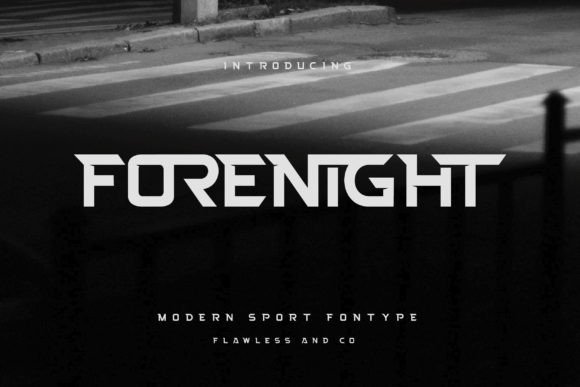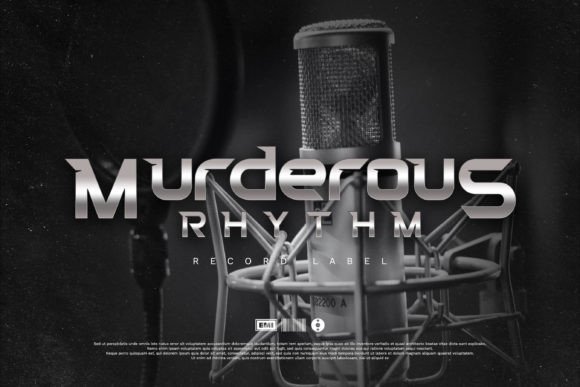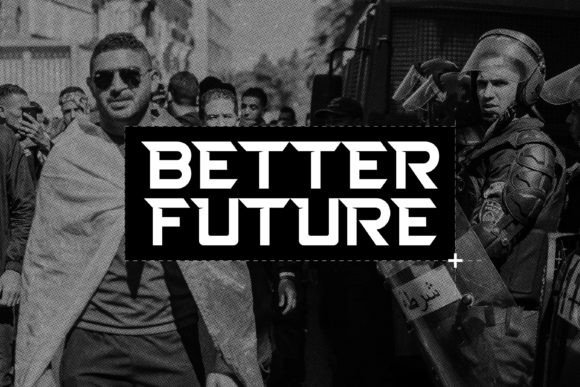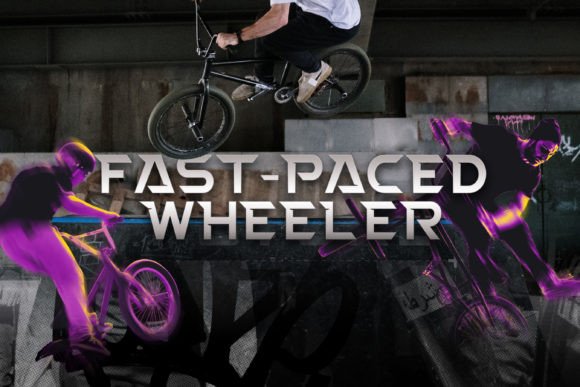
Forenight Font: Bold Display Font for Modern Logo Design
About the Forenight Font
Elevate your designs with Forenight Font, a font that combines sophistication with readability. Forenight is a dynamic and modern sport font designed to capture the spirit of athleticism and energy. With its bold and sleek letterforms, Forenight brings a sense of power and movement to your sports-related designs. Inspired by the speed and intensity of athletic events, this font is perfect for sports team logos, jerseys, posters, and any design that aims to convey a sense of strength and competitiveness.
Forenight excels in headlines, logos, and short, impactful text across various sports-related applications, including posters, banners, and merchandise. Its strong forms also work well for branding projects needing a powerful, energetic feel, but it’s less suitable for body text or UI elements where readability over long stretches is crucial.
Consider pairing Forenight with a clean sans-serif like Open Sans for body copy, providing a contrast in weight and style that enhances readability. For a more sophisticated feel, a refined serif font such as Merriweather could complement Forenight’s boldness.
The overall personality of Forenight is bold, energetic, and modern, conveying speed and dynamism. It’s ideal for brands and projects that want to project strength, competition, and a contemporary edge.